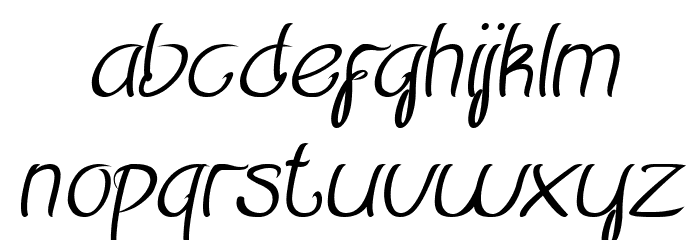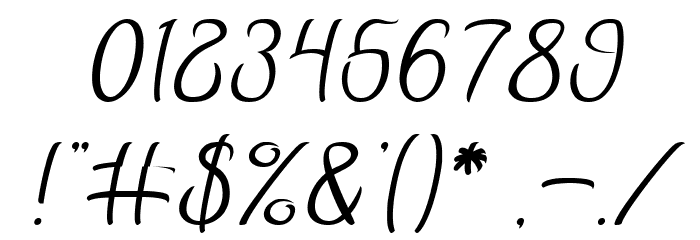
Restaurant Italic Font
This font features an elegant, flowing script style with a distinct italic slant, giving it a sense of motion and sophistication. The characters are interconnected with smooth curves and loops, creating a harmonious and fluid appearance. The uppercase letters are bold and prominent, while the lowercase letters maintain a consistent style with slightly elongated ascenders and descenders. The numerals are designed to match the overall aesthetic, with a playful yet refined look. Special characters are crafted with the same attention to detail, ensuring a cohesive design throughout.
An elegant, flowing script font with a distinct italic slant.
- Font: Restaurant Italic
- Proposed Projects: Ideal for restaurant menus, wedding invitations, elegant branding, and decorative signage.
- Category: Script
- Overall Style: Elegant, Decorative
- Use Case: Logos, Invitations, Menus